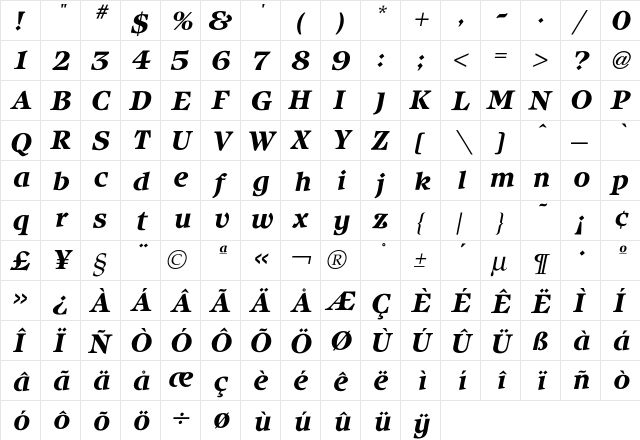
Isbell BoldItalic
Design Context for Isbell Typeface
Isbell is a composed and adaptable typeface that performs quietly and consistently across a wide range of design contexts. The dynamic lean of this cut emphasises speed and emphasis in any layout. The heavy weight commands attention and anchors typographic hierarchies.
Pro Tip: Try Isbell for annotation and caption copy alongside an upright companion — the contrast in angle creates a dynamic but ordered typographic system.